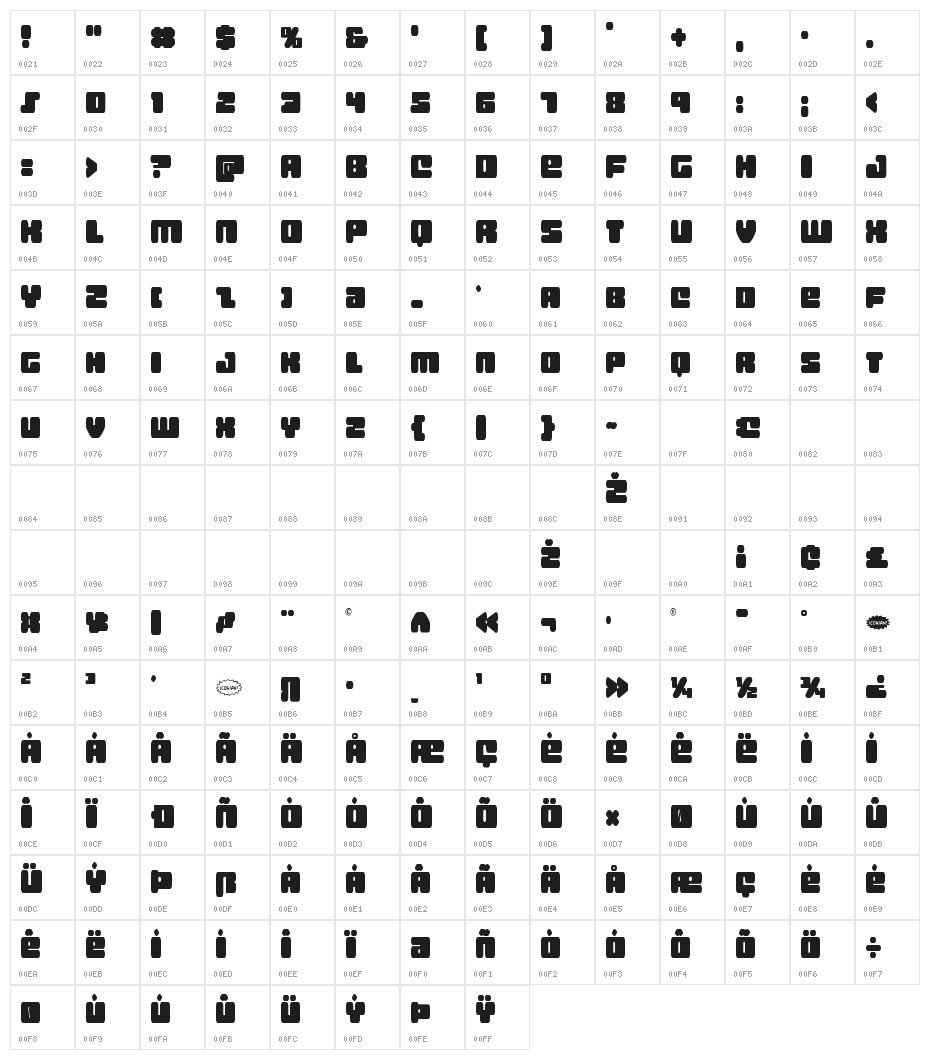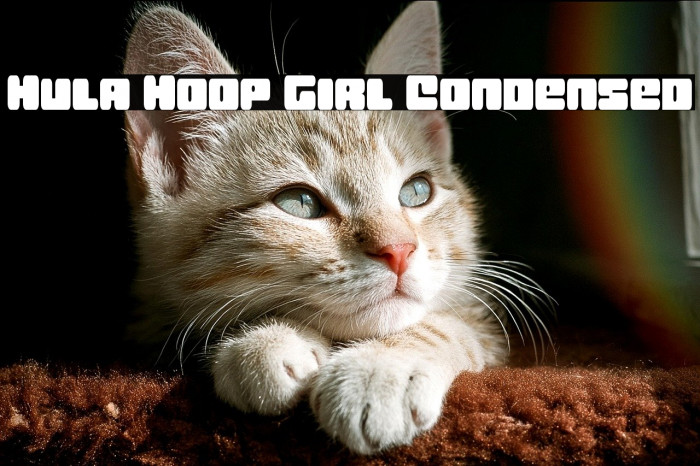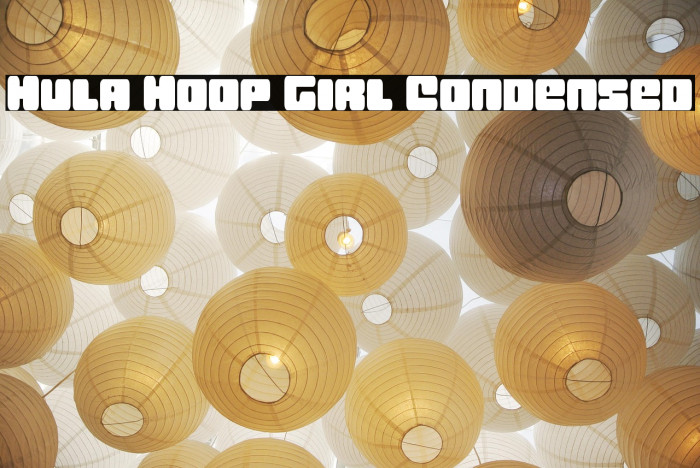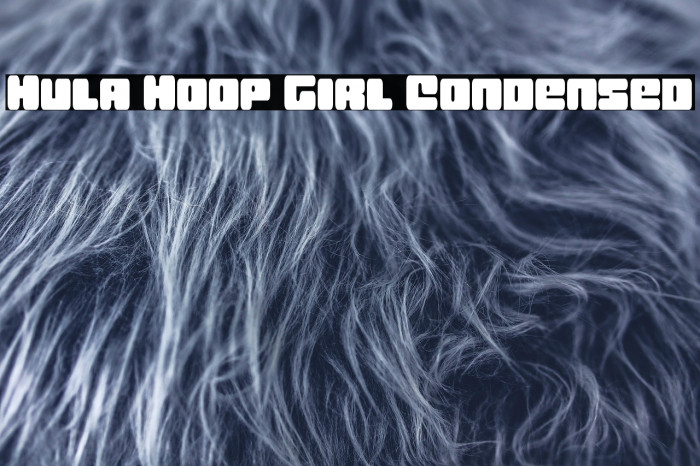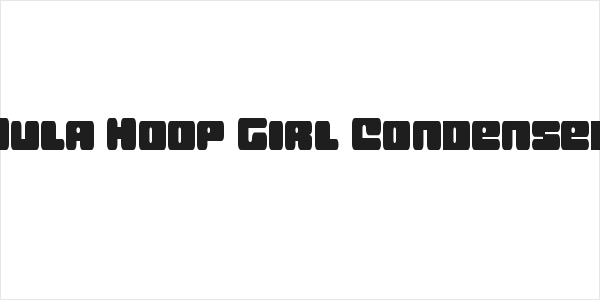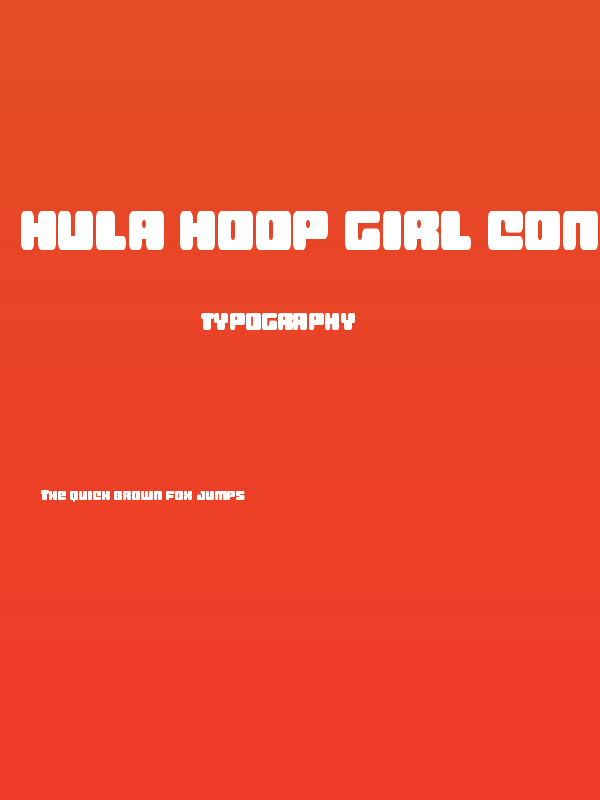
Hula Hoop Girl Condensed Font
Hula Hoop Girl Condensed Description
This font features a bold and playful design with rounded edges and a condensed structure. The characters are thick and uniform, giving a strong visual impact. The rounded corners soften the overall appearance, making it approachable and friendly. The font maintains a consistent weight throughout, ensuring readability while adding a unique style. Its condensed form allows for more text in a limited space without sacrificing legibility. The numbers and special characters follow the same design principles, ensuring a cohesive look across all elements.
| Proposed Projects | Ideal for children's books, playful branding, posters, and event invitations. |